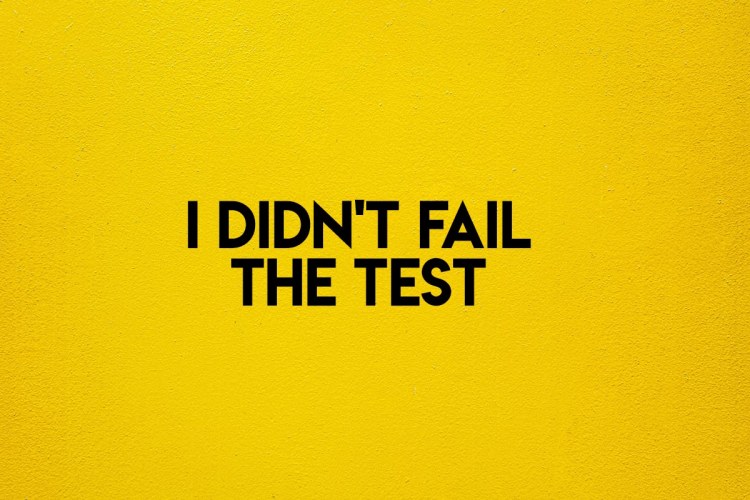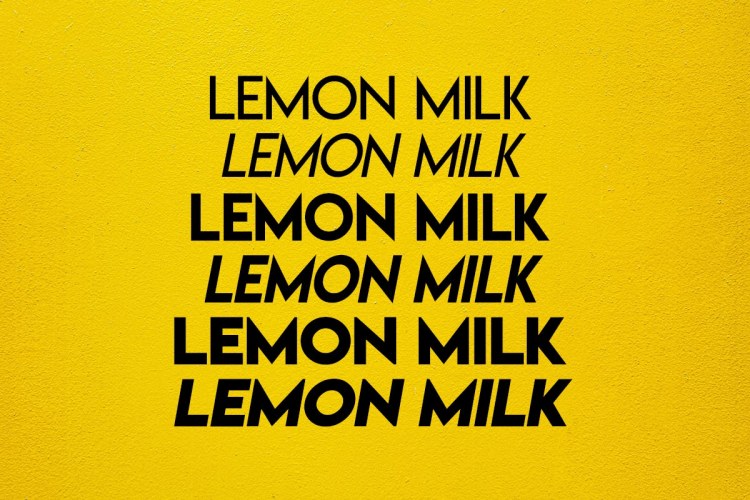
Lemon Milk Font
Lemon Milk is a geometric sans serif font family that has found its place in the design society and is admired for its persistent geometric shapes and usage in various f…
Lemon Milk is a geometric sans serif font family that has found its place in the design society and is admired for its persistent geometric shapes and usage in various fields. Marsnev created this font, which has recently gained popularity among designers because of its simplicity and minimalism. Lemon Milk offers elegance and simplicity, making it suitable for different design applications.
Lemon Milk Font was designed by Marsnev, who received much acclaim for his original typeface designs. Due to its introduction and unique geometric shape, it gained quick popularity in the design community. The name “Lemon Milk” is quite unique and creative, which makes it easily memorable for clients.
At first, Lemon Milk was released as a free font, which made it accessible to a vast number of designers who could test it without having to spend any money. This accessibility was one of the factors contributing to the general use of this format. As Marsnev’s font gained popularity and more people wanted more features, he released the professional version called Lemon Milk Pro, which has a larger character set, more weights, and other stylistic accents.
The design of Lemon Milk is quite unique and one of the most appealing features of the font. All the shapes of the letter are constructed with clear, precise forms and equal distribution of the elements, which gives the typeface a contemporary look. The geometric consistency helps to maintain the aesthetics of the font and makes it easily legible for different uses.
Lemon Milk also comes in a variety of weights from the light ones to the bold ones. This spectrum offers designers the possibility to employ the font for various tasks, including headings, logos, and texts. However, the font retains its unique characteristics regarding the weight to provide uniformity within a project.
The Pro version of the font Lemon Milk has an expanded character set, which allows for the use of multiple languages. This is particularly useful in global projects as designers can easily maintain the typography across various languages and even alphabets.
However, Lemon Milk Pro also includes more stylistic bases, which will enhance the creativity of designers. You can use these alternatives to complement certain projects to increase the versatility of the font.
This font is perfect for logos and branding due to its strong yet minimalist design with sharp edges. Its design looks very formal and business-like, which would be perfect for companies that wish to convey a more progressive image. The range of weights also allows designers to create a brand identity system where different weights are in use for different aspects of the brand, like logos, business cards, and other promotional materials.
In the print media, Lemon Milk is better because of the ease of reading and understanding the content. The font has a geometric look which makes it easily readable even at smaller sizes which therefore makes it suitable for use in magazines, brochures, posters and other print materials. It is possible to distinguish headlines and subheadings by making them bold while body texts will be in lighter weights which will create a feeling of hierarchy.
Thus, Lemon Milk is perfectly applicable for web designs and can improve the look of websites. Its contemporary design is perfect for the tech industry, new businesses, and design studios that aim to exhibit the philosophy of innovation. The font’s legibility makes it suitable for use on screens, making it useful on both desktop and mobile platforms to enhance the usability experience.
Lemon Milk makes use of design in advertisement and marketing in a way that will definitely gain much attention. In advertisements, on social media platforms, and in emails, the font choice is strong enough to draw attention to important details that will help capture the recipient’s interest.
Futura: Futura is a well known geometric sans-serif typeface designed by Paul Renner in 1927. Similar to Lemon Milk, Futura also has a simple, geometric shape and proportional composition, which makes it suitable for branding, or editorial design, and many other purposes.
Avenir: Another geometric sans-serif typeface similar to Lemon Milk is Avenir designed by Adrian Frutiger. Lemon Milk’s design is a bit more mechanical, giving off a colder and more corporate vibe while Avenir is slightly more humanistic, giving off a warmer and more inviting feel without losing the geometric aspect of it.
Montserrat: Montserrat created by Julieta Ulanovsky is a modern and clean sans-serif font with geometric appearance comparing to Lemon Milk. Montserrat is a popular font for websites and logos as it has a contemporary and flexible design.
Simple letterforms survive angles, glare and movement, so Lemon Milk Font suits door signs, menus boards and exhibition panels.
What kind of work does Lemon Milk Font suit?
It sits in the Sans Serif Fonts group and reads as bold, condensed, geometric, modern. That makes it a candidate wherever those qualities help: headings, packaging, social graphics and brand work. Set it at the size you plan to use before deciding.